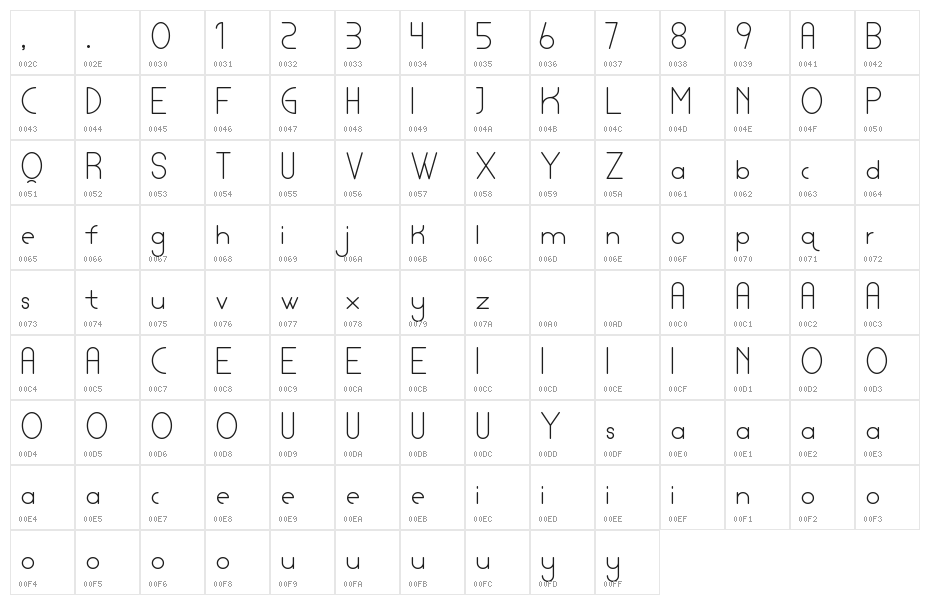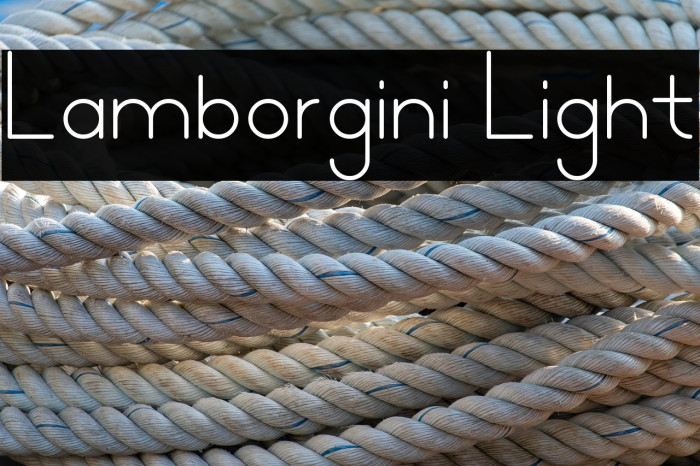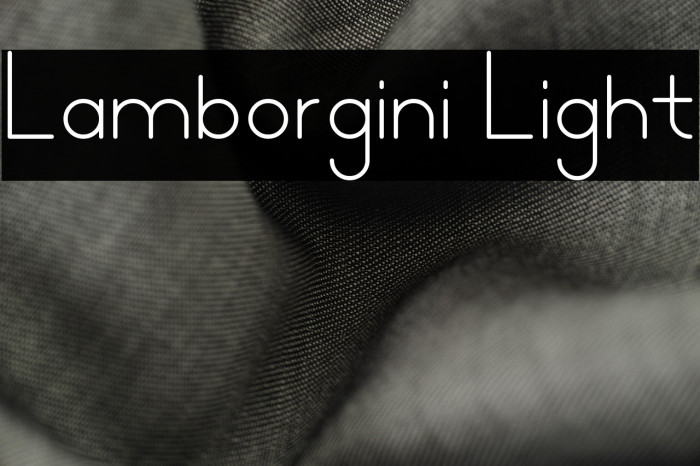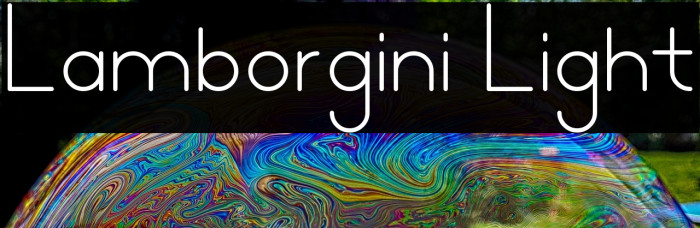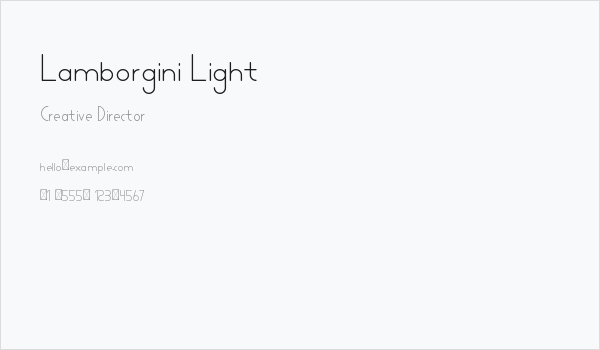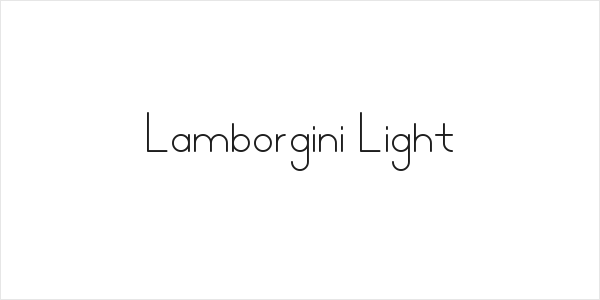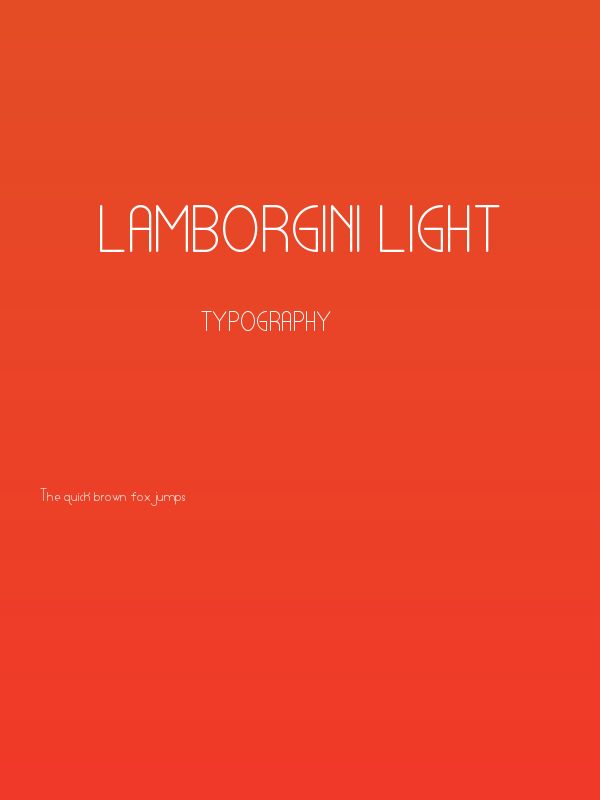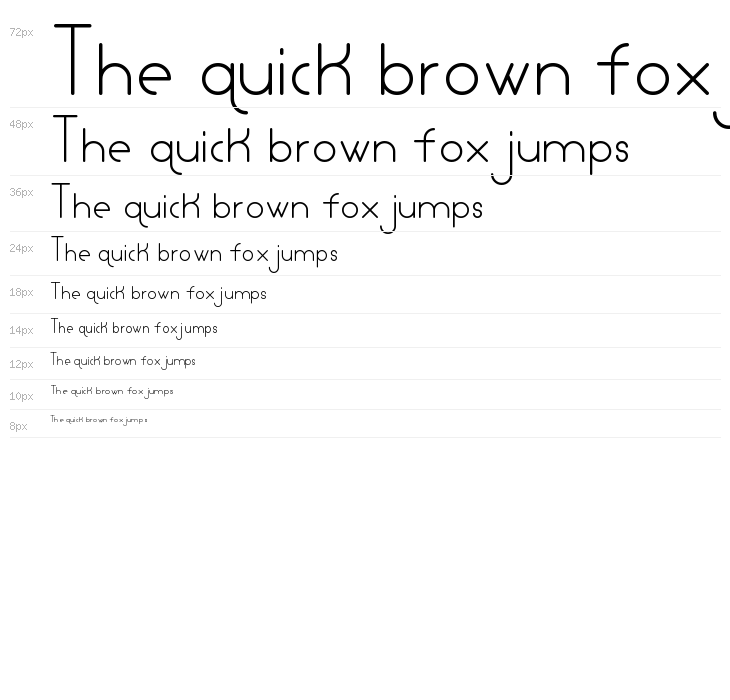
Lamborgini Light Font
Lamborgini Light Description
This font features a sleek, modern design with thin, uniform strokes that convey a sense of elegance and simplicity. The characters are elongated with a slight geometric influence, giving them a contemporary and stylish appearance. The uppercase letters are tall and narrow, while the lowercase letters maintain a consistent height, enhancing readability. The numerals are distinct and align well with the overall aesthetic, making them suitable for a variety of design applications. The font's minimalistic approach is complemented by its clean lines and open forms, making it versatile for both digital and print media.